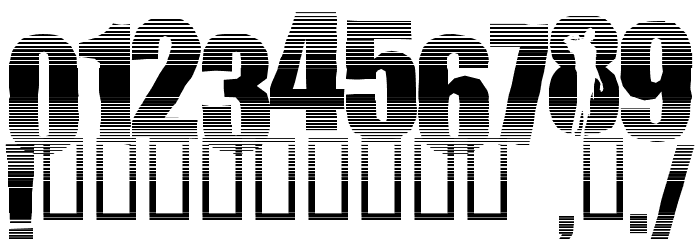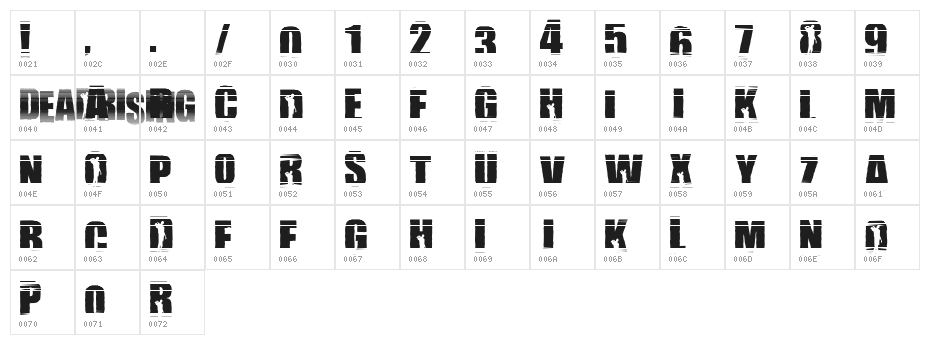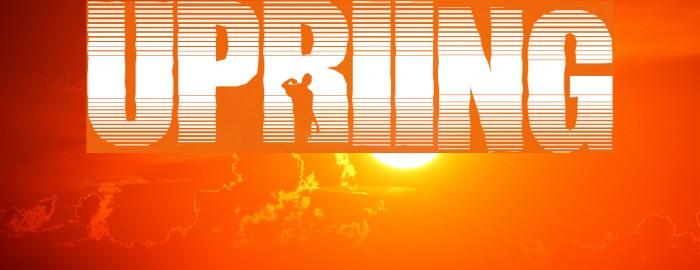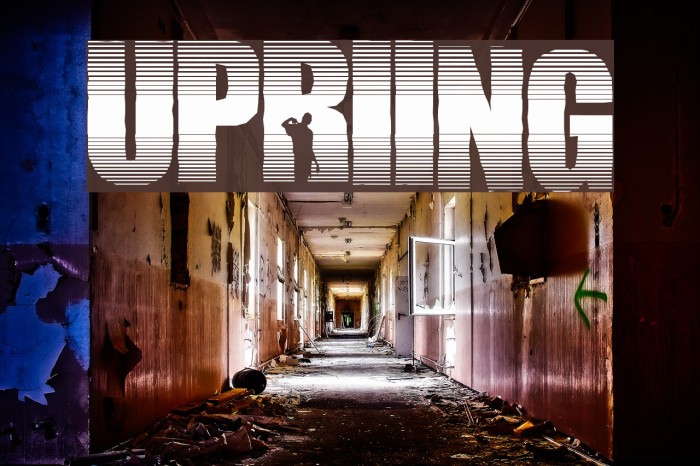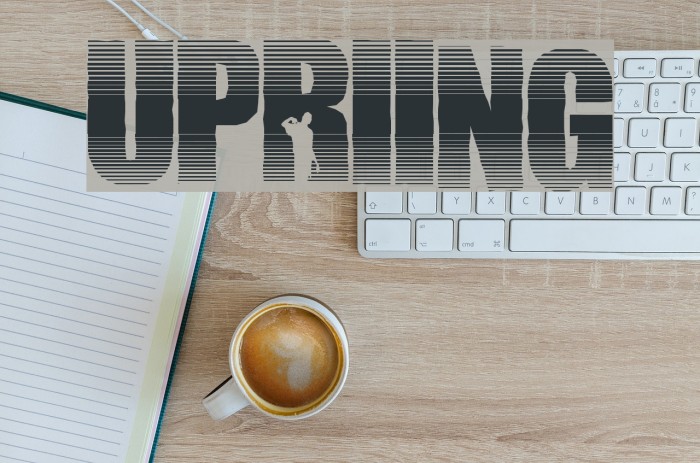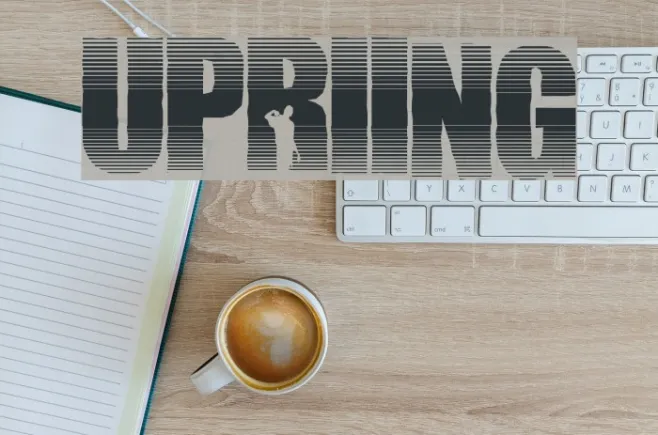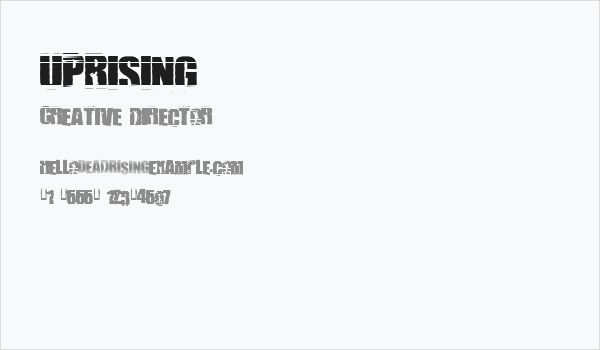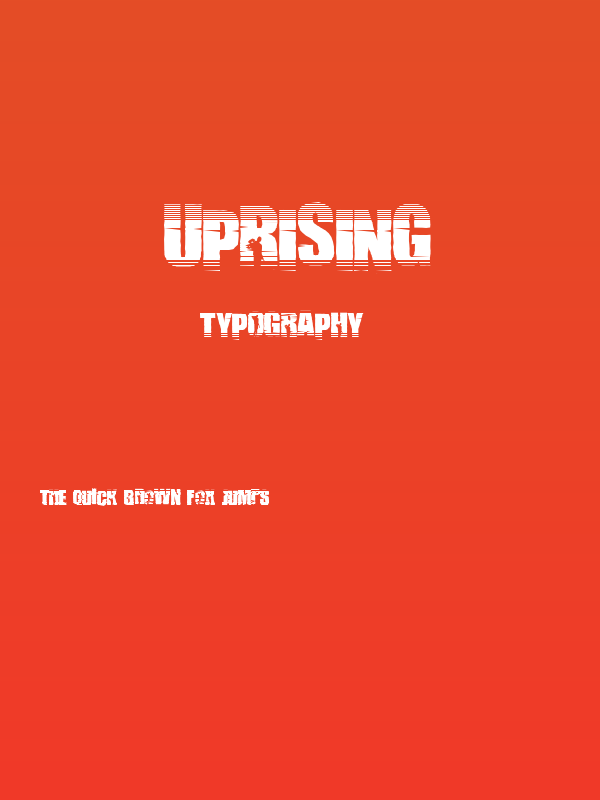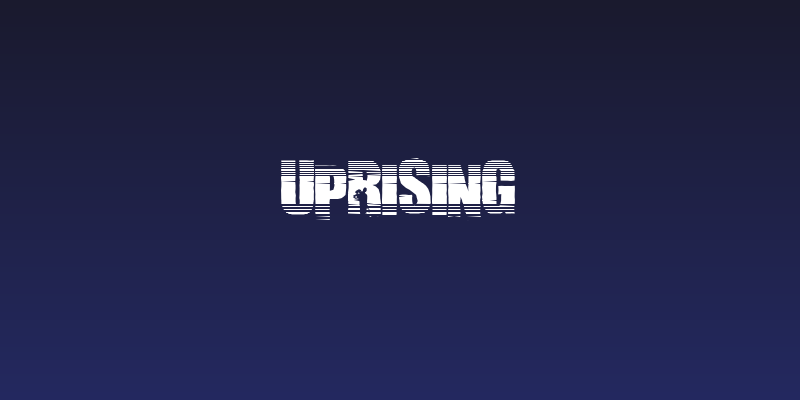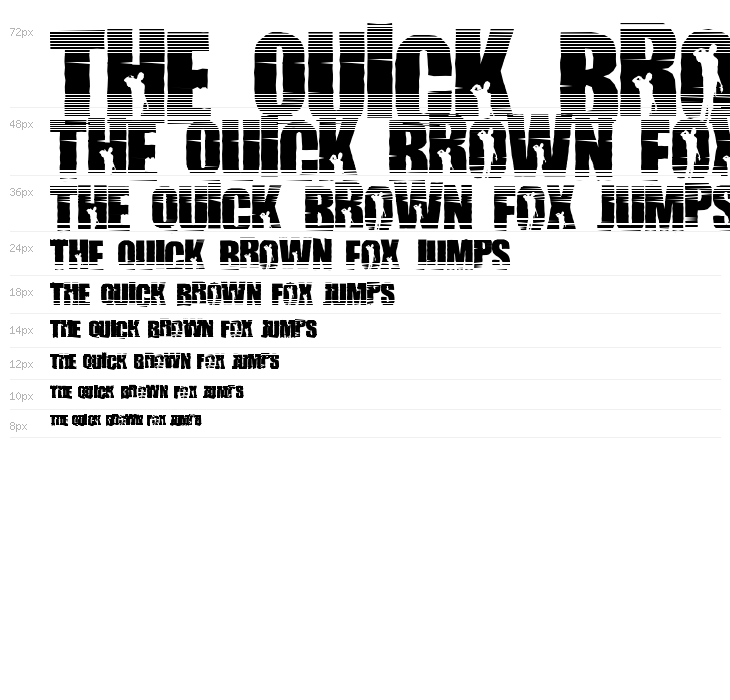
Uprising Font
Uprising Description
This font features a bold, striking design with a unique striped pattern running horizontally across each character. The letters are uppercase with a strong, impactful presence, making them ideal for attention-grabbing headlines or titles. The design incorporates a silhouette of a person in a dynamic pose, adding a sense of movement and rebellion to the overall aesthetic. The numbers and special characters maintain this bold style, ensuring consistency across all elements. The font's distinctive look is perfect for projects that require a modern, edgy feel.
| Proposed Projects | Ideal for music album covers, protest posters, urban-themed designs, and bold branding projects. |